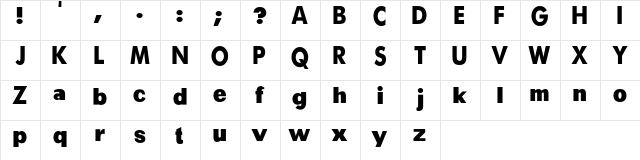
a bug's life - debugged Regular
a bug's life - debugged takes a measured approach to typography — its balanced proportions and neutral character make it a reliable workhorse for both digital and print work.
Pro Tip: Use a bug's life - debugged in both headline and body roles to test its range before committing to a single application.